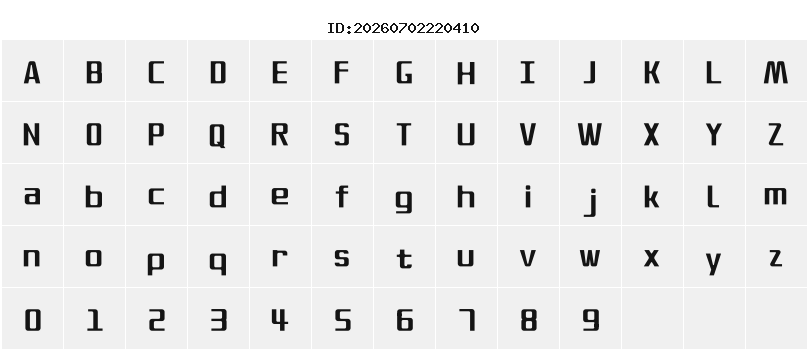
016-上首锐圆体 Preview
About 016-上首锐圆体.ttf
016-上首锐圆体.ttf is a modern, elegant sans-serif font designed for ultimate readability and visual harmony. Perfect for branding, headlines, web design, and print materials.